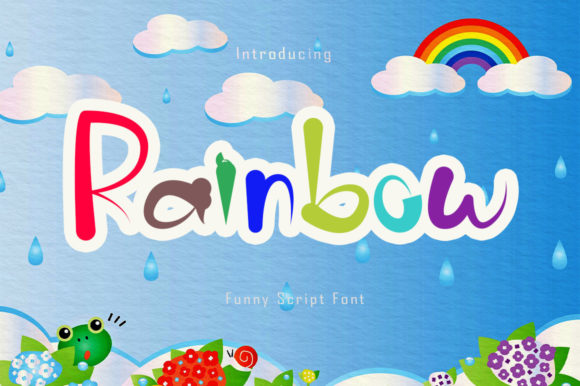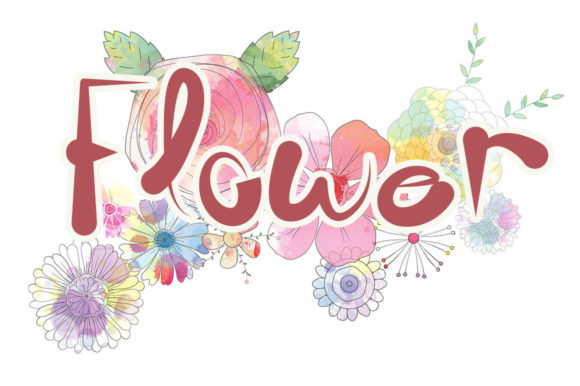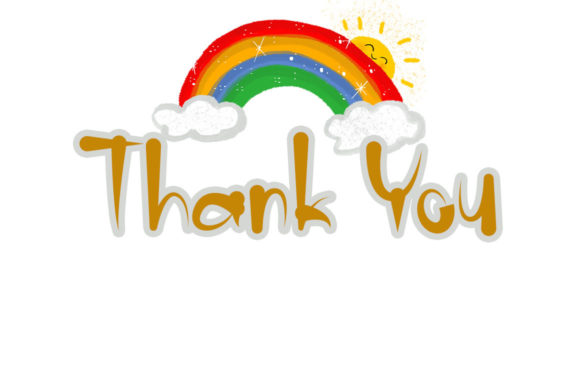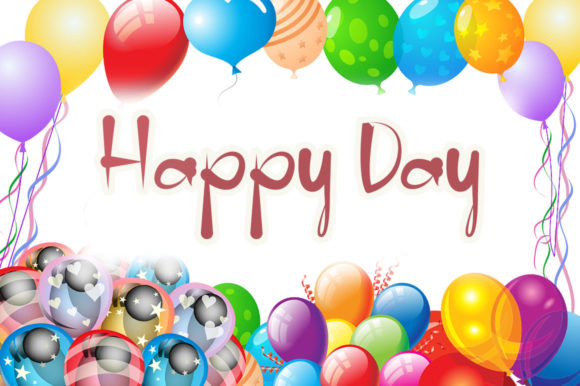
Rainbow Font
About Rainbow Font
Rainbow is a dainty, genuine and cursive handwritten font. This gentle font will look gorgeous on a variety of design ideas. It will add a fun and joyful touch to each of your projects!